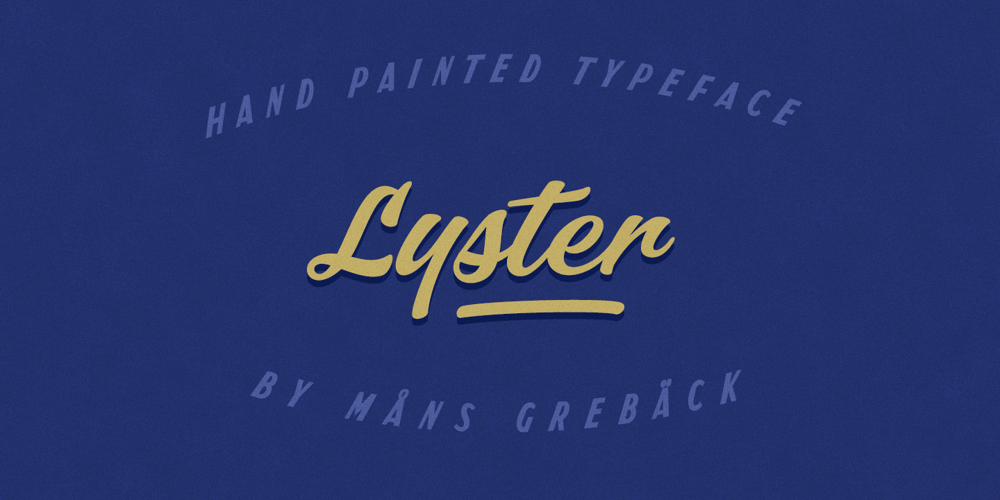
Lyster Font Family was designed by Måns Grebäck and published by Mans Greback. Lyster contains 2 styles and family package options. Lyster is a hand-painted script typeface, built and created by Måns Grebäck in 2020. Its brush strokes makes the typeface the ultimate blend between modern and classic. The balanced weight and tilt result in velocity, flow and a friendly but energetic vibe. Lyster comes as Lyster Regular and Lyster Bold, and each style contains a full OpenType compatible alternate alphabet and ligatures.The font contains all characters you’ll ever need, including all punctuation and numbers. It has an extensive lingual support, covering all Latin-based, European languages.